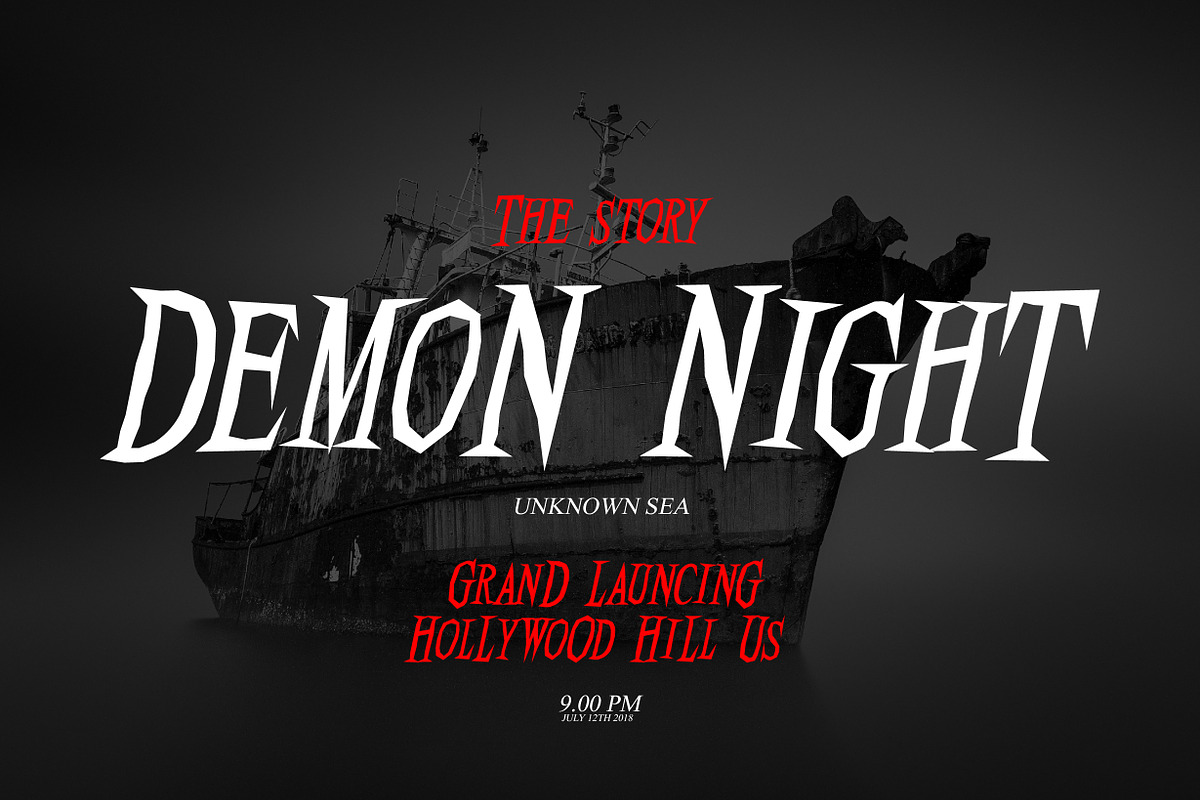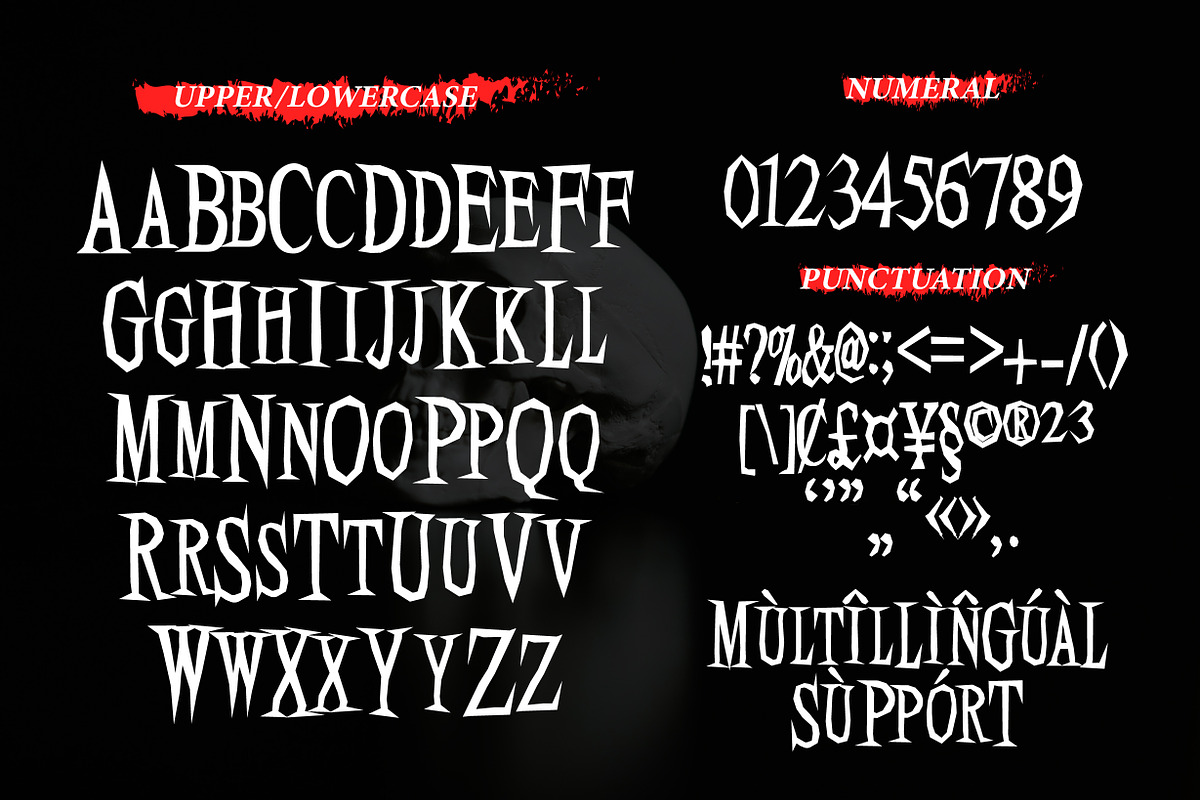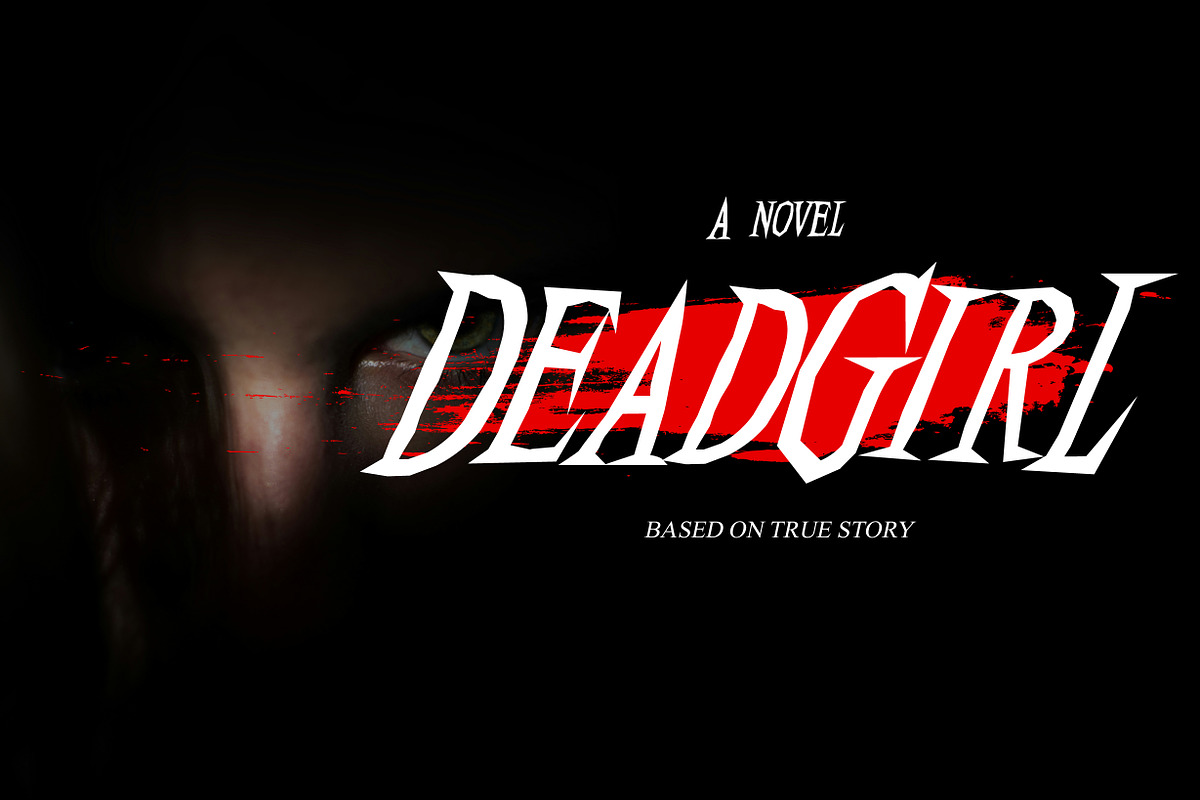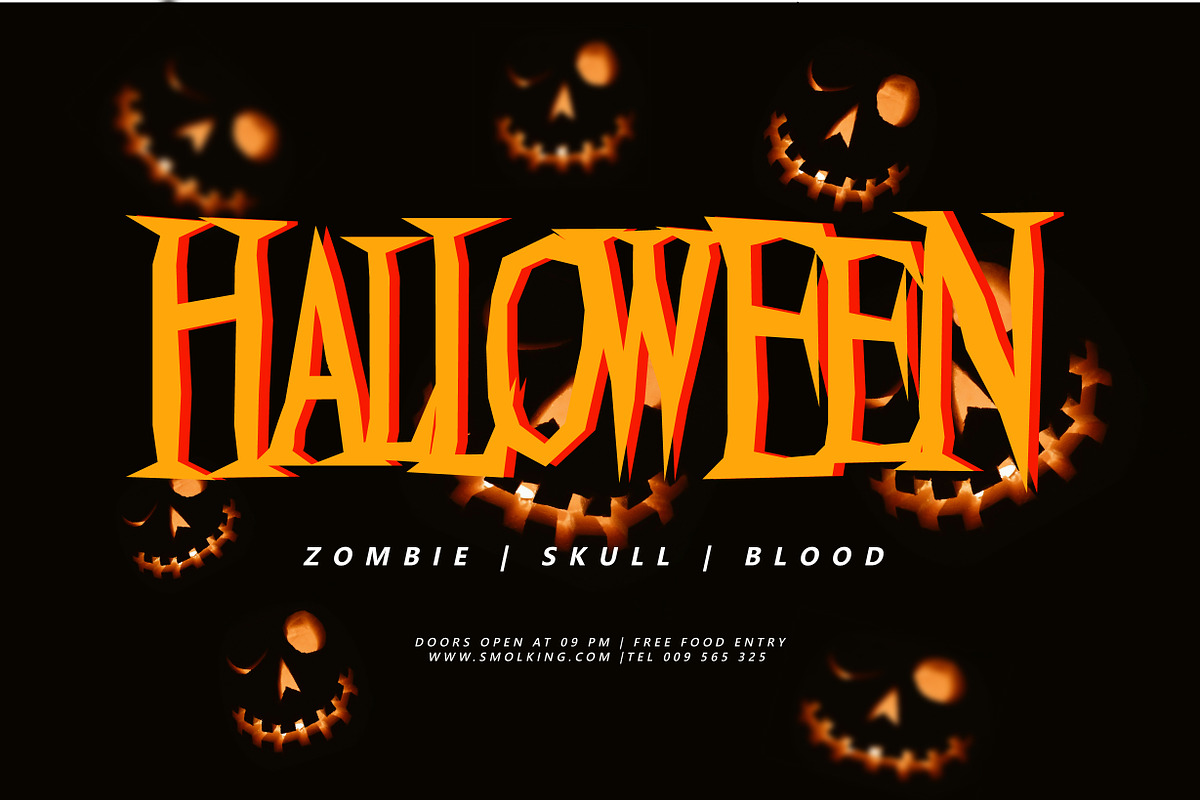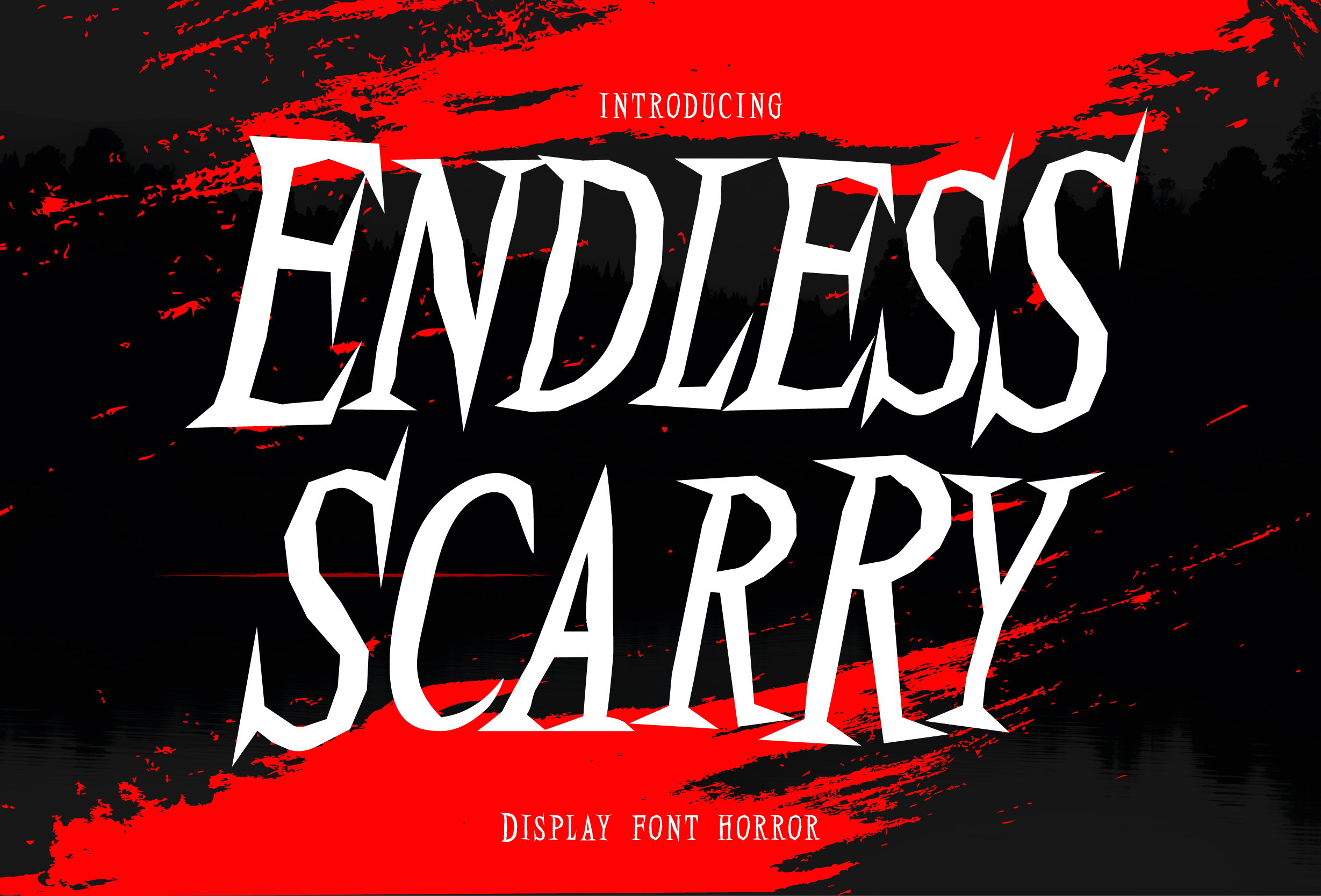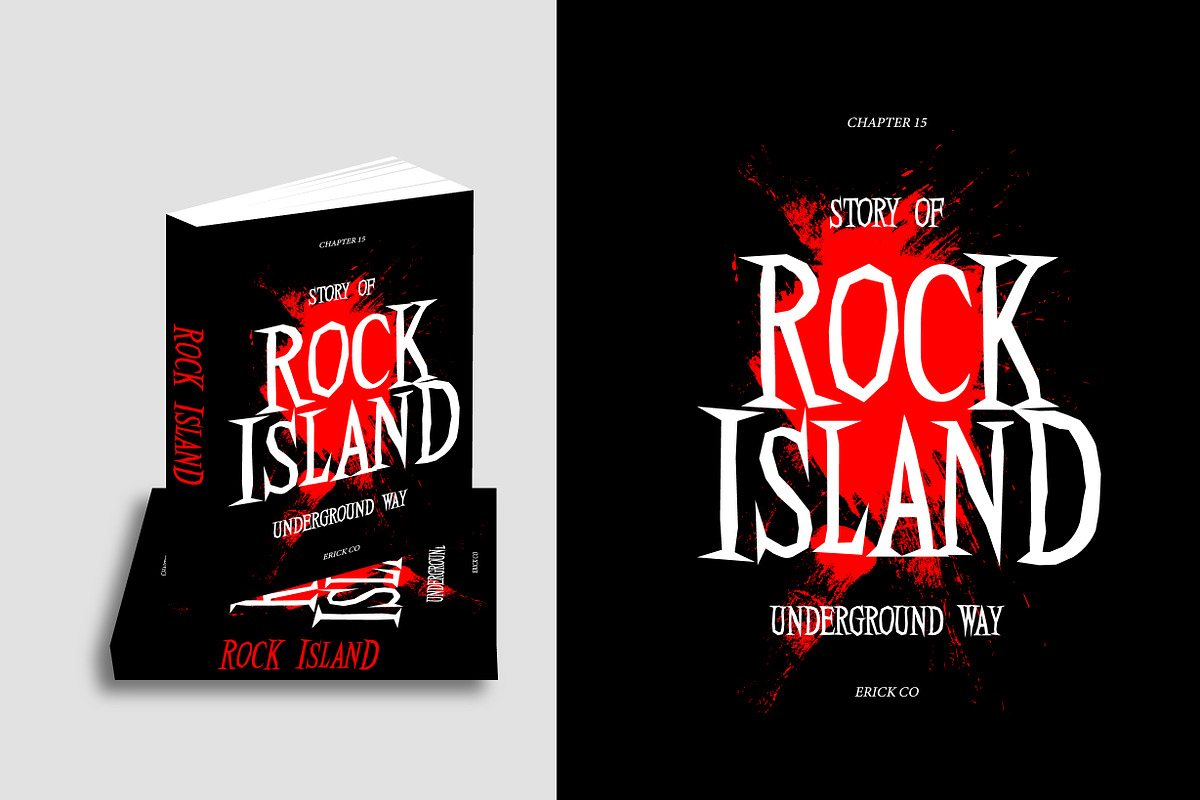
Endless Scarry - Display font horror
Endless Scarry has a strong and aggressive look with sharp lines and curves. This font has hard angles and is slightly tilted towards the vertical, giving it a sharp and intimidating feel. accompanied by additional decorations that you can customize yourself. Can be applied such as t-shirt designs, film poster designs, book covers, quotes etc.
FEATURE;
Uppercase and lowercase letters
Support Foreign, Numbers and Punctuation.